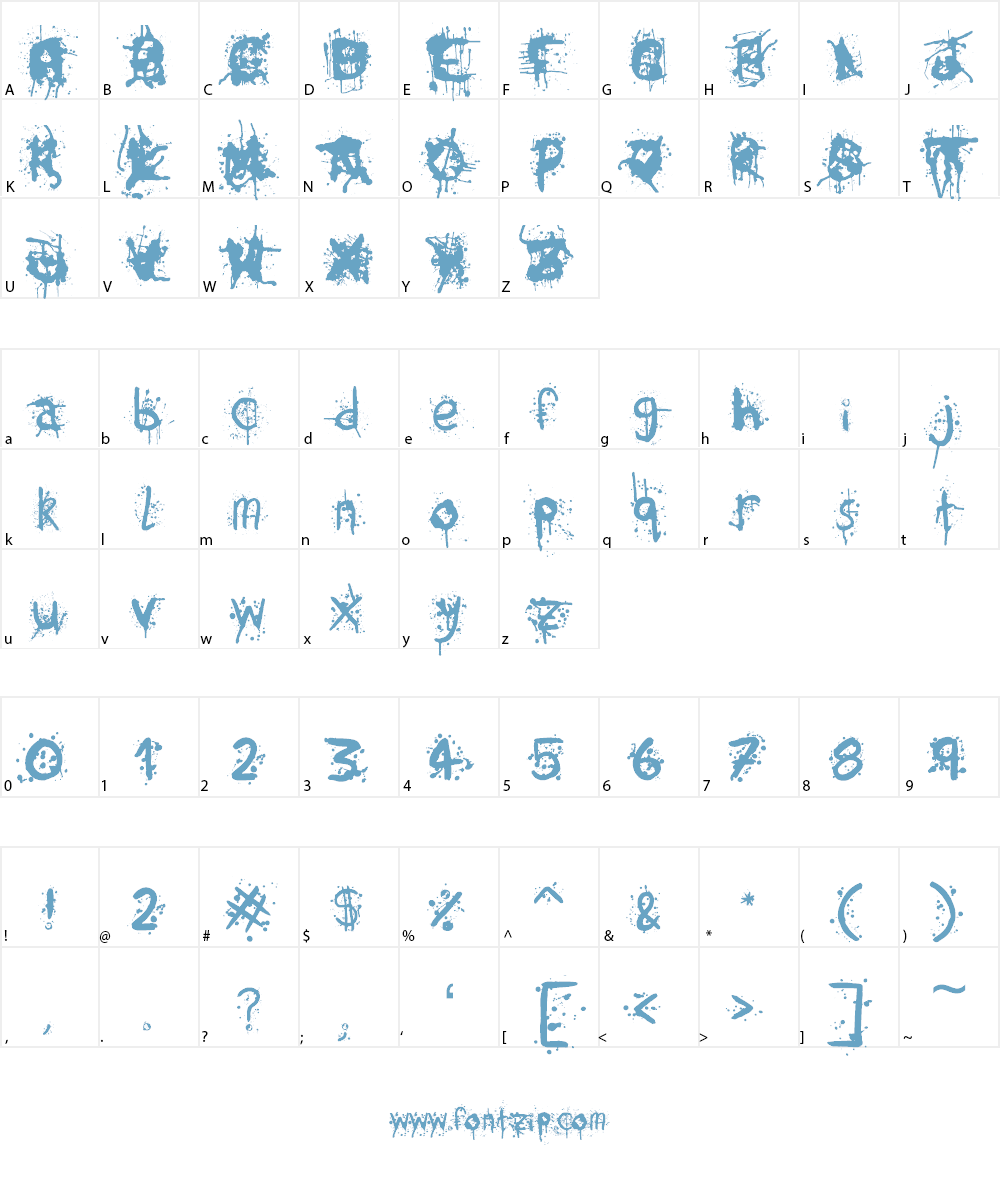
Tumult, the typeface has been developed using a combination of water and food colouring to create a typeface is influenced and inspired by the movement of water. It is about the fluidity and organic nature that water possesses; each letter utterly unique in their patterns and textures. One of my experimental aims was to push legibility, I have created an uppercase of my typeface that is only decipherable in context; the typeface forces the reader to slow down and think about what it is they are reading, otherwise it is illegible. The lowercase of the typeface has been created to be more legible in contrast to the uppercase; it has been created using the same method, at a lower intensity to be clearer to the reader. Use is best above 20pt, otherwise it is too small to read, due to the amount of mess